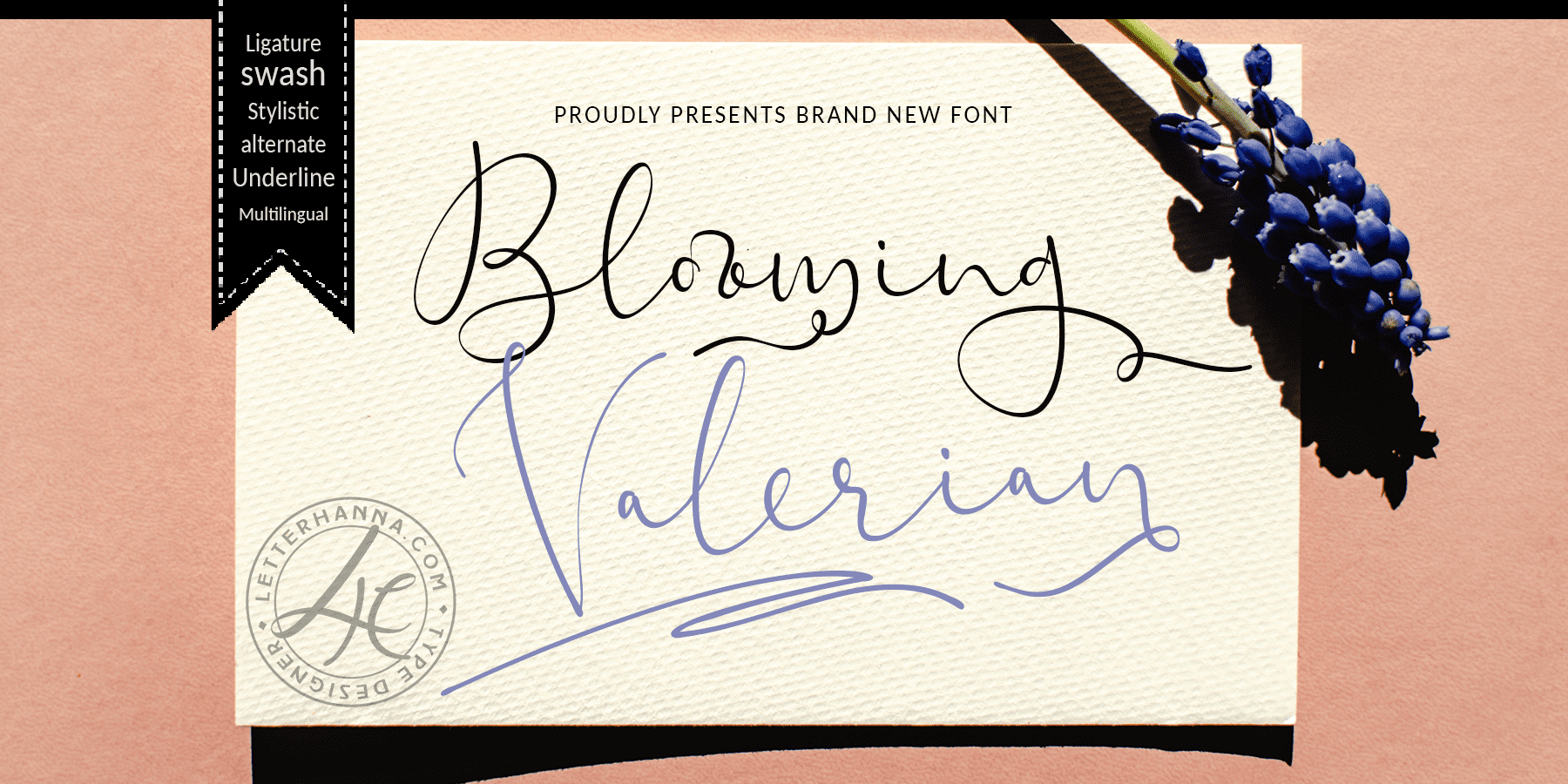
Blooming Valerian Free Download
Blooming Valerian Font Free Download
Blooming Valerian Font is perfect for botanical garden branding, herbal wellness center communications, natural skincare product packaging, organic flower shop signage, aromatherapy spa marketing, wildflower festival promotions, botanical illustration publications, and nature-inspired lifestyle brand campaigns. This flourishing typeface excels in applications where botanical beauty, natural healing, and organic elegance are essential for connecting with audiences who appreciate the therapeutic power of plants and the serene beauty of wildflower meadows.
What makes Blooming Valerian Font so exciting is its graceful embodiment of botanical sophistication and herbal tranquility that perfectly captures the essence of flowering meadows and the gentle healing properties of medicinal plants. The font features delicate, organic letterforms with floral characteristics that evoke blooming wildflowers and peaceful herb gardens. Its natural character conveys serenity, healing, and botanical wisdom - essential qualities for brands serving wellness communities, natural health enthusiasts, and audiences who appreciate herbal remedies, botanical beauty, and the calming influence of nature's therapeutic gardens.
The Blooming Valerian Font family includes multiple organic weights and botanical variations that enhance its natural appeal. Some versions feature subtle floral flourishes that simulate blooming petals and organic growth patterns, while others provide cleaner variants that maintain the font's botanical character with improved readability for professional wellness applications and commercial natural health communications.
Whether you're creating branding for wellness services, designing materials for botanical products, or developing marketing campaigns for natural healing experiences, Blooming Valerian Font Free Download provides the organic authenticity your project requires. The font's botanical character makes it particularly effective for brands targeting wellness seekers and audiences who appreciate natural healing, herbal wisdom, and the peaceful beauty of flowering botanical environments.
Bloom with natural grace using Blooming Valerian Font and cultivate serene brand communications with typography that celebrates the healing beauty of botanical gardens and wildflower tranquility.